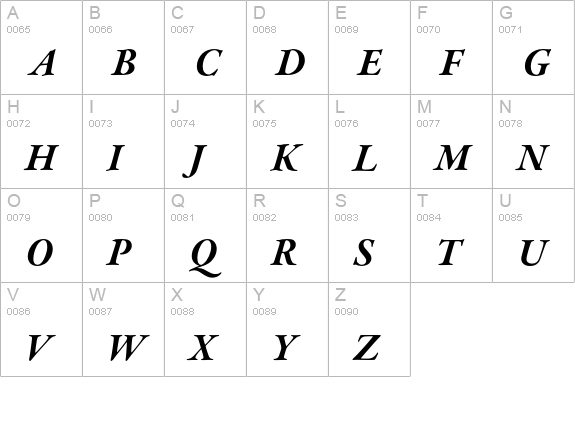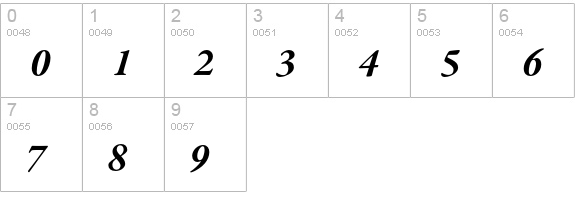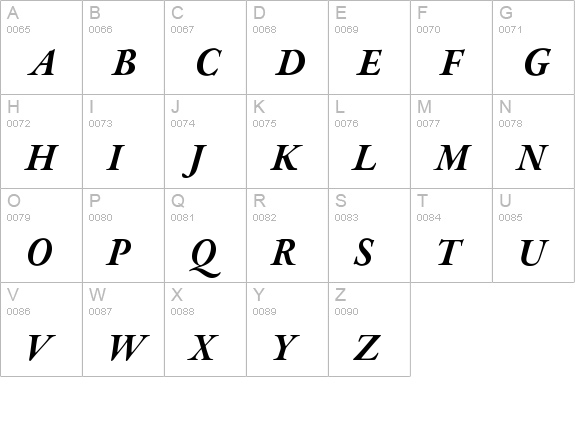
Garamond Premier Pro Bold Italic Font Details
Garamond Premier Pro Bold Italic is a strong, high-contrast, italic variant in the Garamond typeface family \xE2\x80\x94 well suited to headlines, attention-grabbing titles, and strong calls-to-action.
Garamond Premier Pro Bold Italic is a timeless and elegant font that exudes sophistication and professionalism. Its bold and italicized characters add a touch of flair and emphasis to any text, making it perfect for headings, titles, and other prominent elements in design projects. The robust strokes and graceful curves of this typeface make it stand out while maintaining a sense of classic beauty. What sets Garamond Premier Pro Bold Italic apart is not only its stunning design but also the fact that it is available for free download at FontsMarket.com. This means that you can easily access and incorporate this high-quality font into your projects without any cost, adding value and style to your work effortlessly. Whether you are creating a website, poster, brochure, or any other design, Garamond Premier Pro Bold Italic is sure to make a lasting impression with its striking appearance and professional appeal.